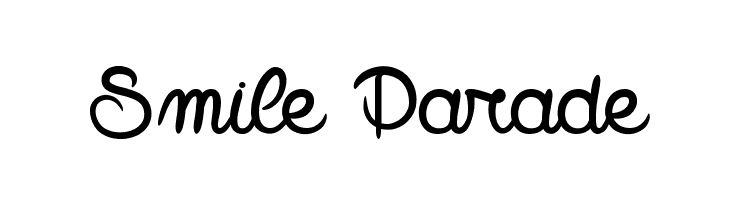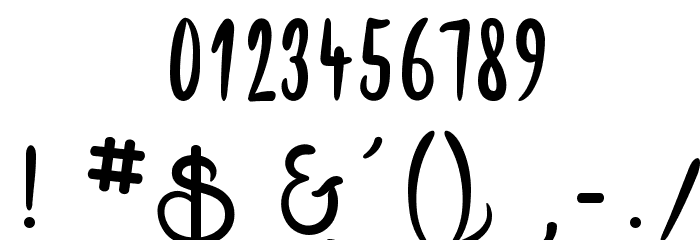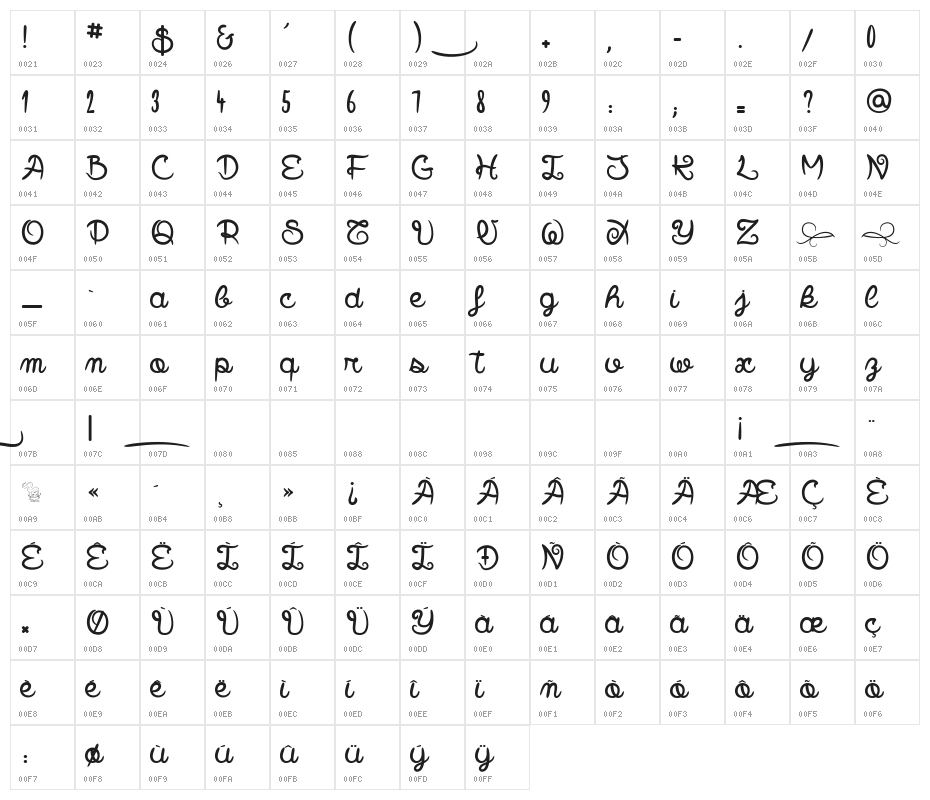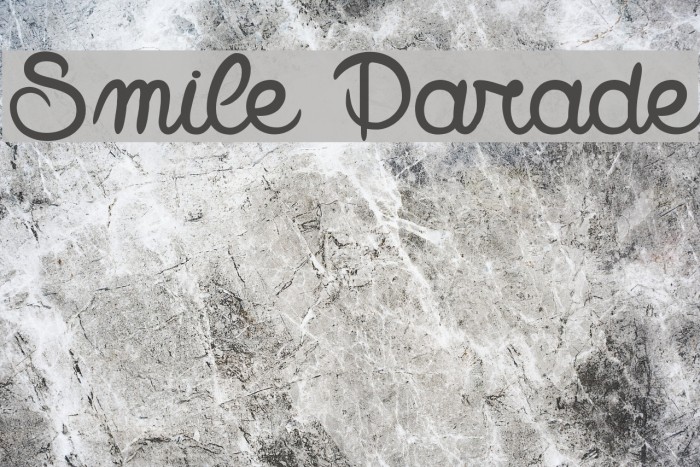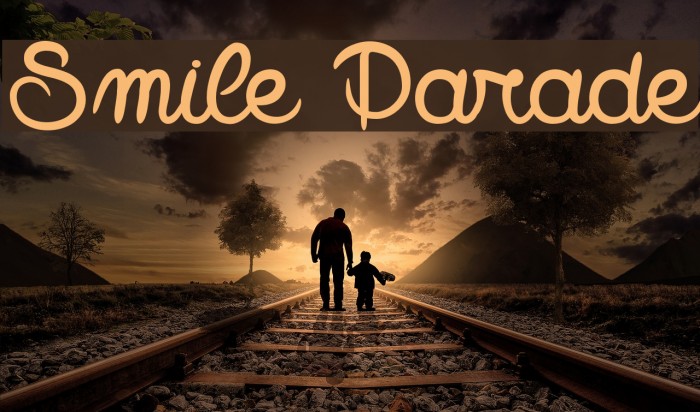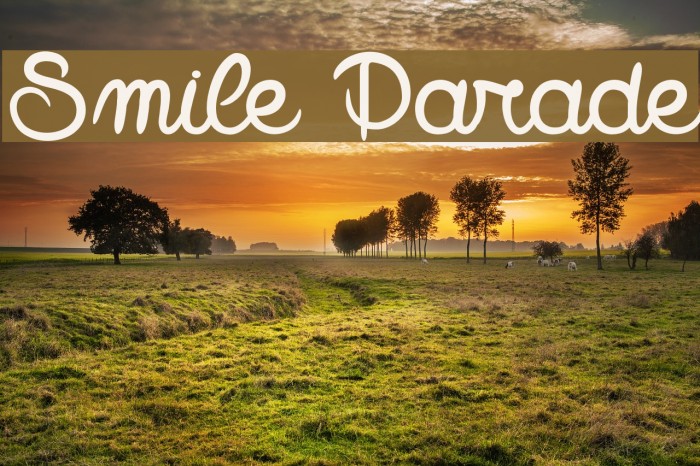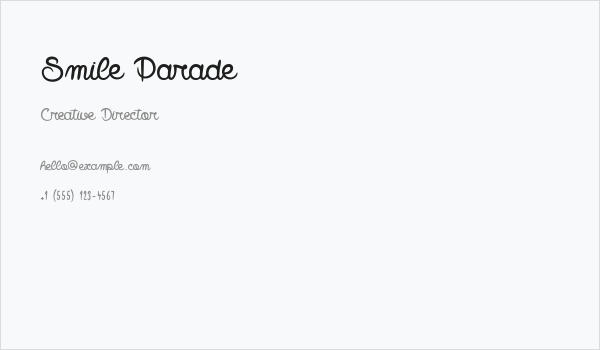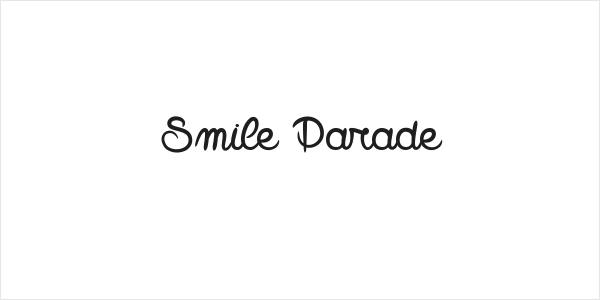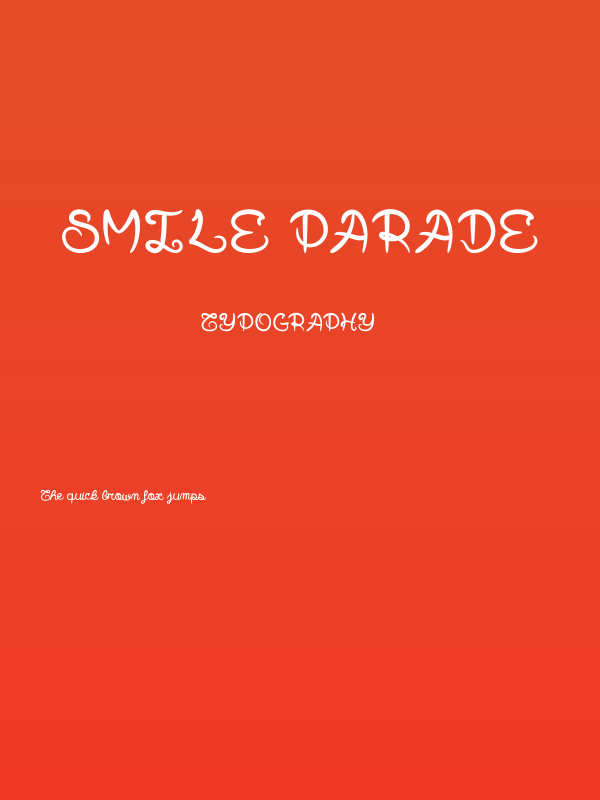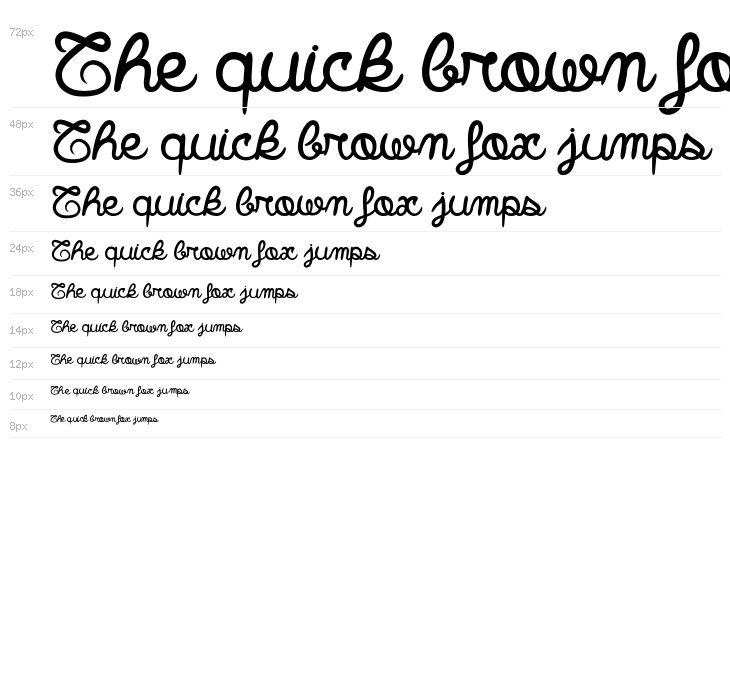
Smile Parade Font
Smile Parade Description
This playful and whimsical font features a handwritten style with a lively and energetic feel. The characters are crafted with smooth, flowing curves and a consistent stroke width, giving it a friendly and approachable appearance. The uppercase letters are slightly more structured, while the lowercase letters exhibit a more casual and relaxed style. Numbers and special characters maintain the same playful aesthetic, making this font versatile for various creative projects. Its unique charm and personality make it ideal for designs that require a touch of fun and creativity.
| Proposed Projects | Ideal for children's books, greeting cards, playful branding, and creative posters. |